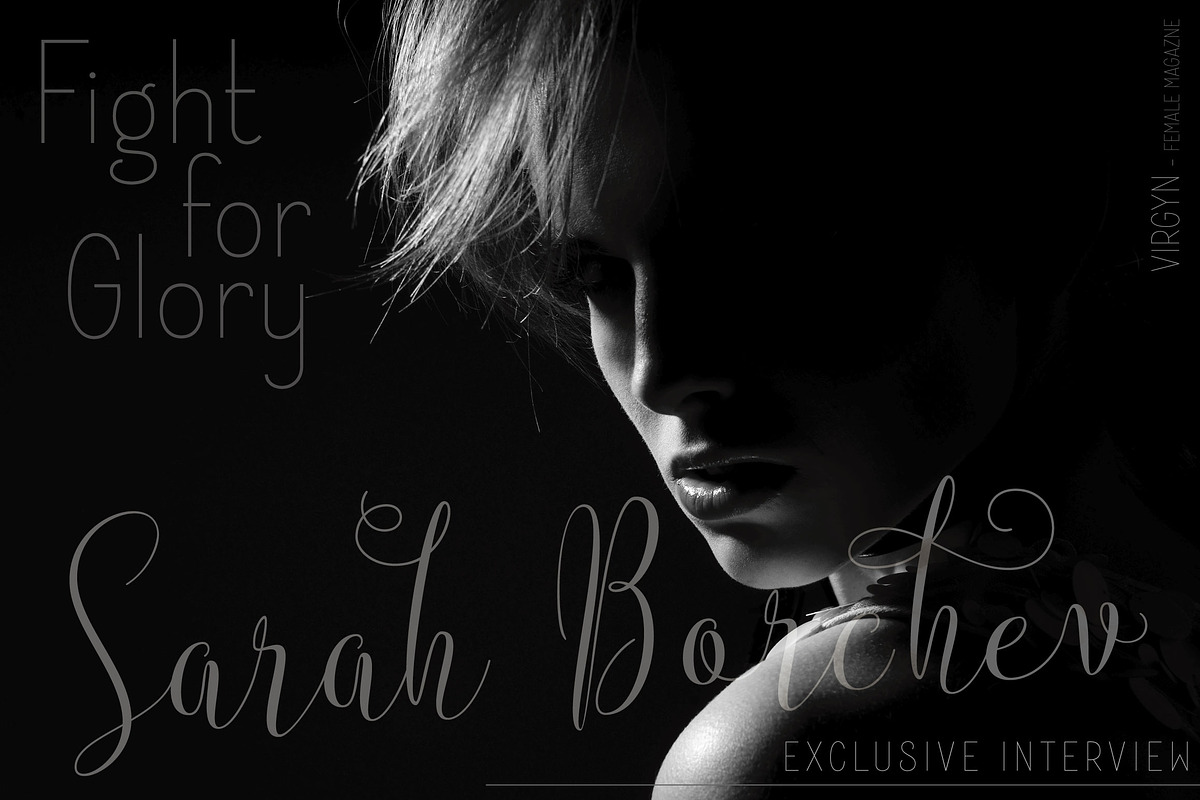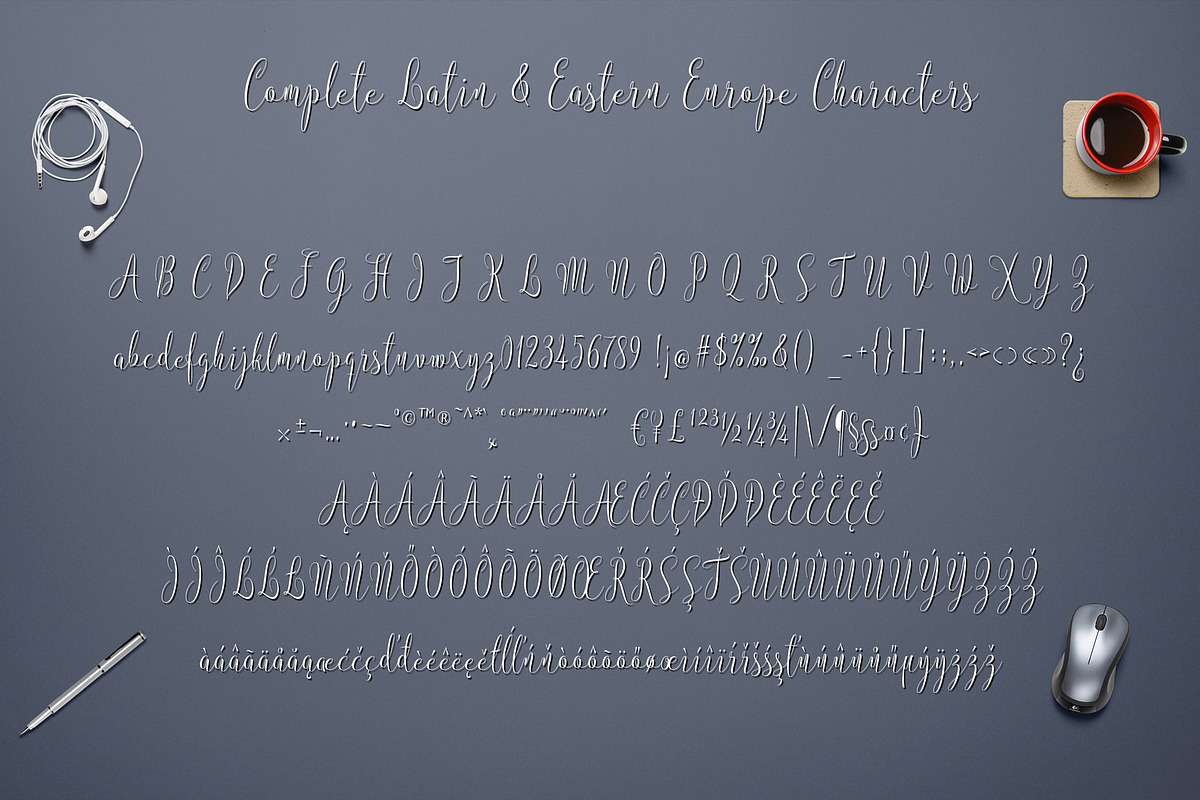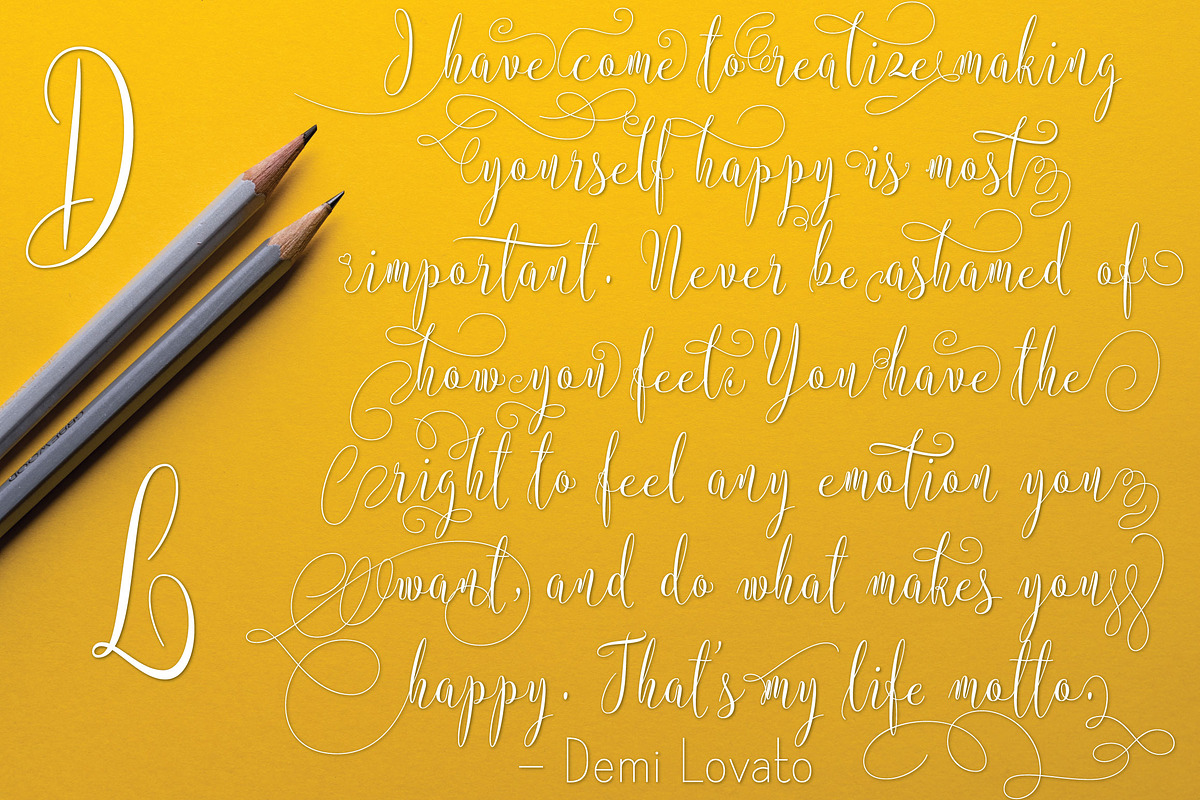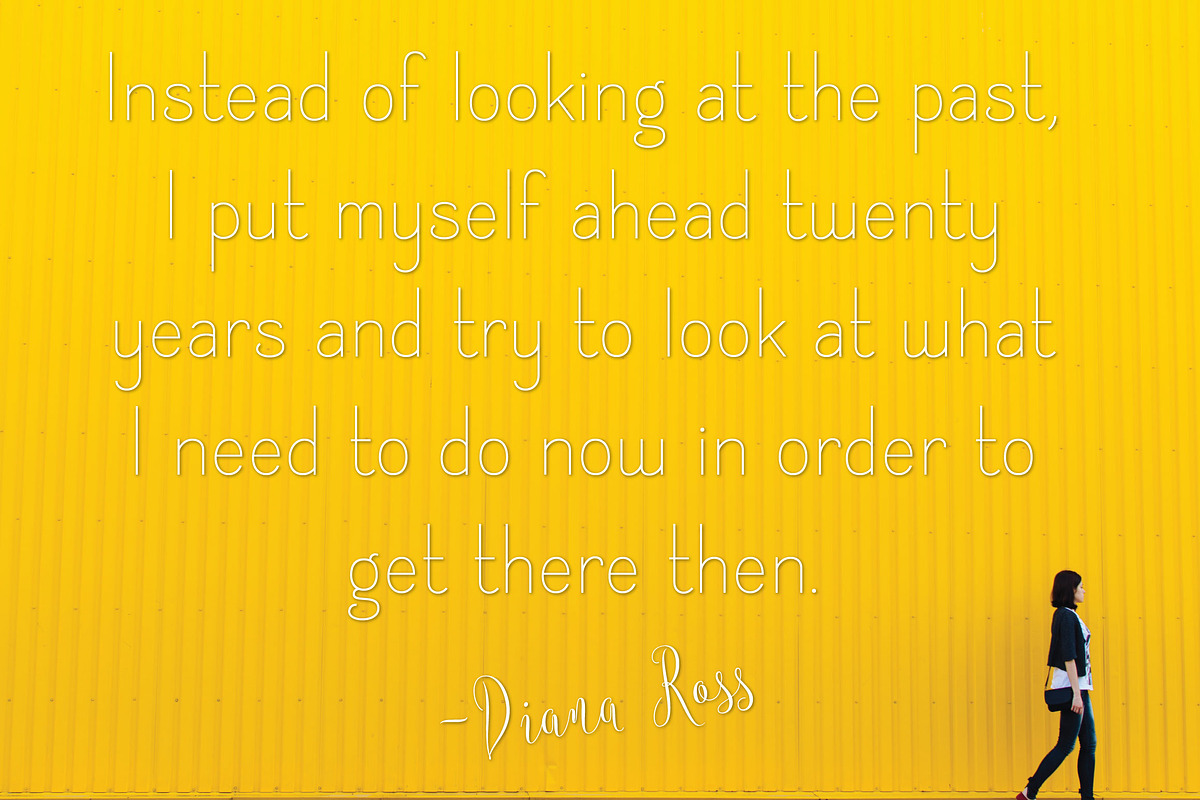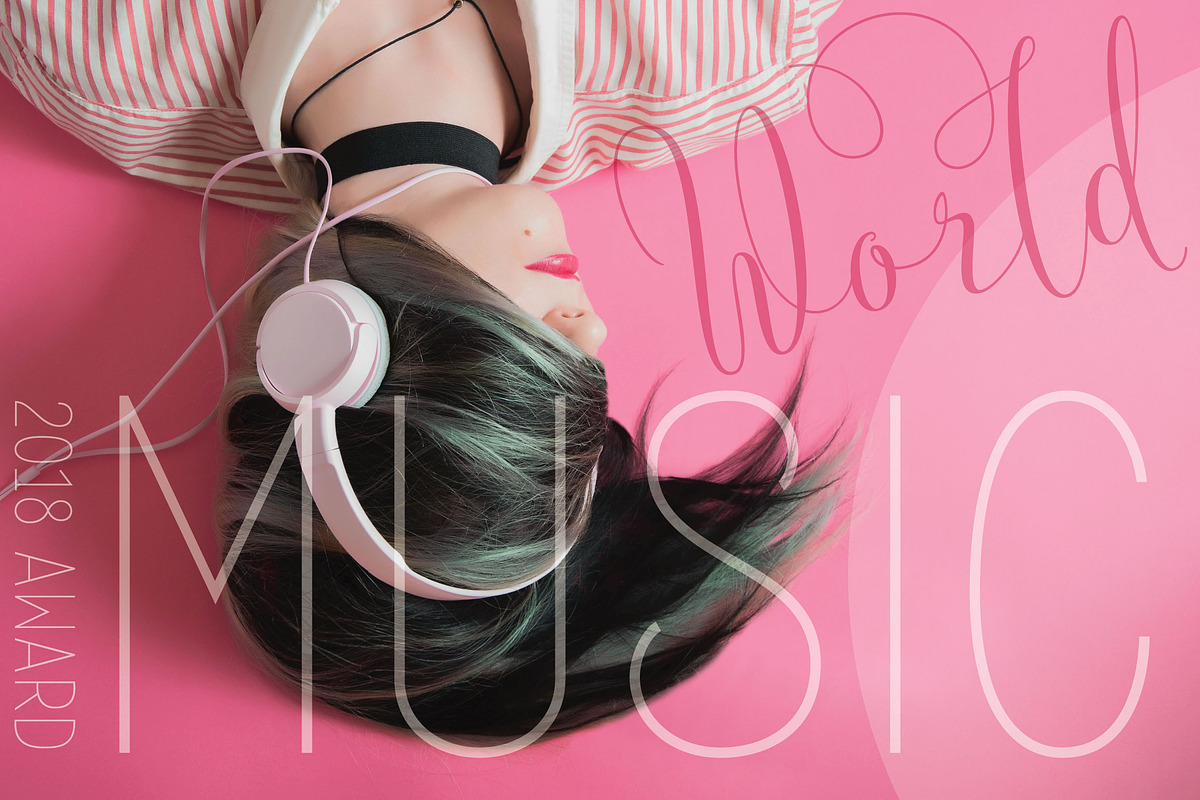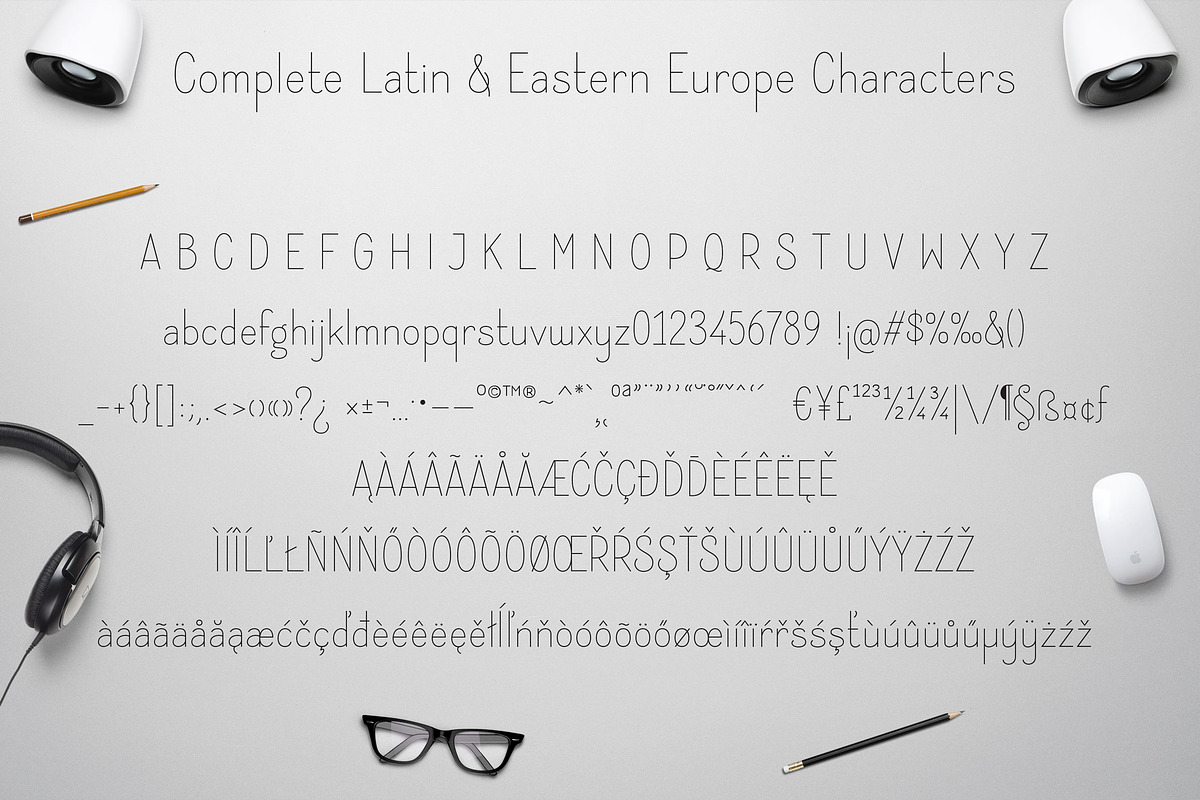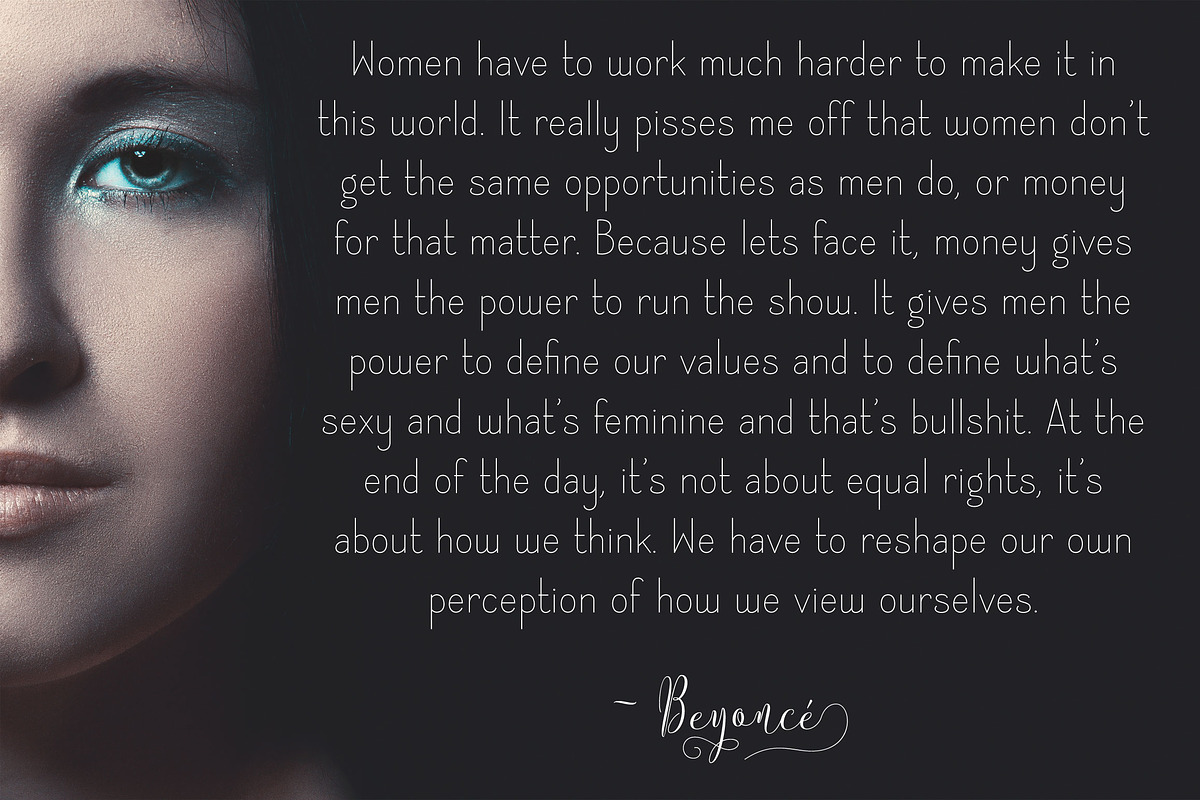
Instine Font Duo | Elegant Font
Introducing a new elegant and modern script, paired with the sans style. This font duo will nice for flyer, T-Shirt, magazine, mug, wedding invitation. etc
Instine Script Features:
Have 629 glyphs, supported Latin and Eastern Europe characters.
171 Alternate characters
Auto initial, final and isolated characters. (activate Contextual Alternates feature)
64 portable swash for left side and right side, supported with shortcut key (greater and less) (activate Contextual Alternates feature first).
Instine Sans Features:
Instine sans have 280 glyphs, supported to Latin and Eastern Europe characters.